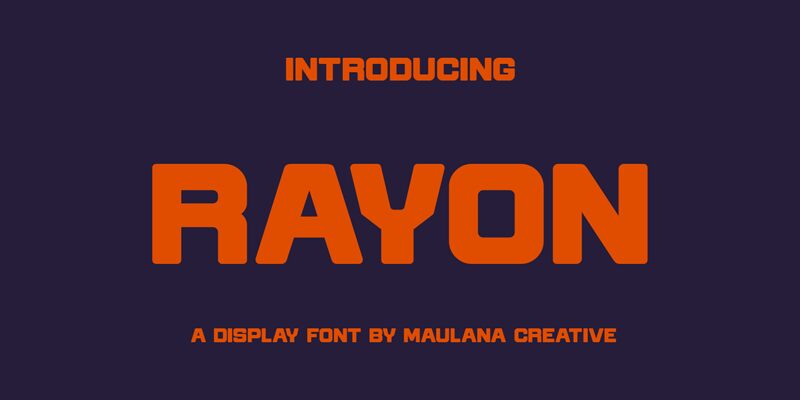
Rayon, crafted by Maulana Creative, is a sans serif font that exudes strength and clarity. Its bold character stands out with confidence, making a statement in every headline it graces. The font's clean lines and solid form offer an aesthetic that is both modern and timeless.
In the world of design, Rayon's impactful presence makes it an excellent choice for branding projects, advertising campaigns, and any setting where attention-grabbing typography is key. Whether used in print or digital mediums, this font carries an air of sophistication that can elevate the visual narrative of any creative work.